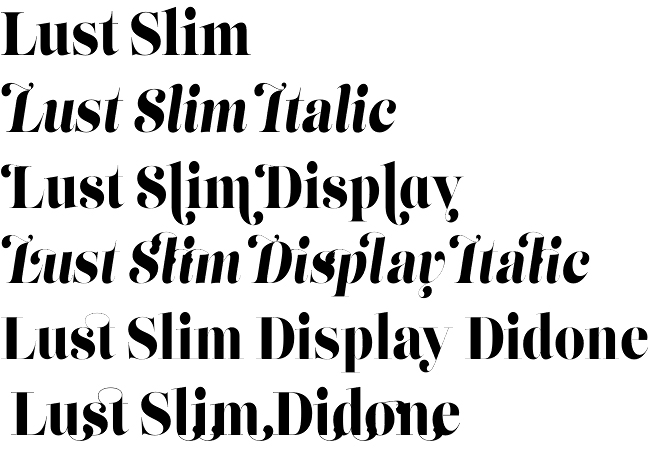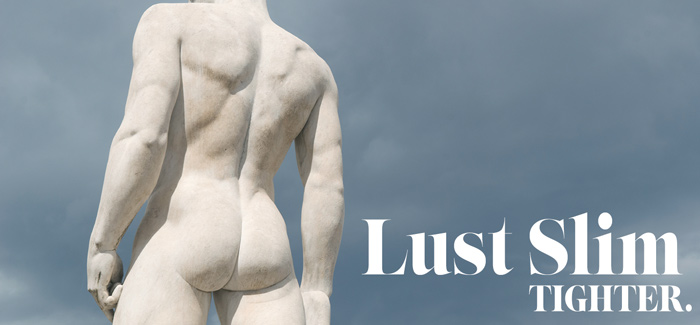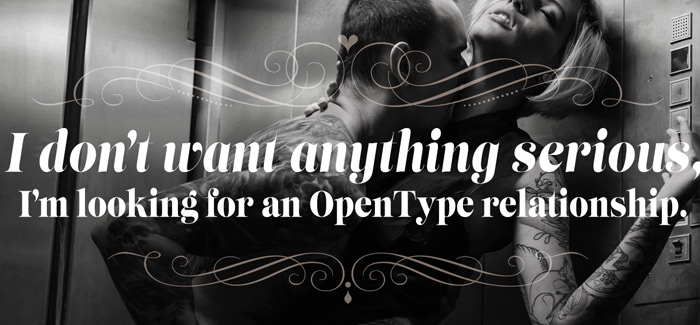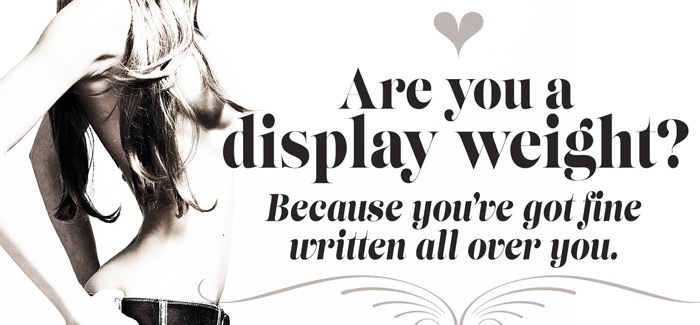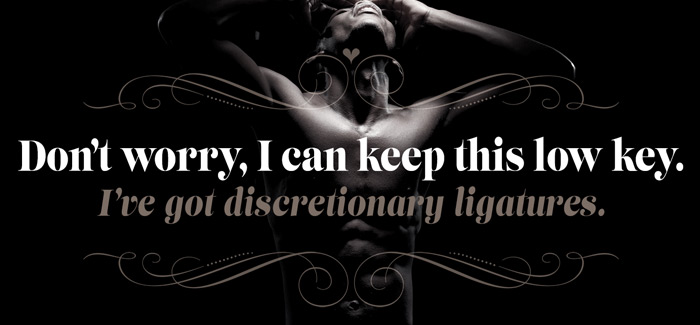
Lust Slim font
Lust Slim font by Neil Summerour / Positype (Clear Sans Text font, Clear Sans font, Shameless font) is the French hottie in the ensemble of the Lust and Lust Script font families. She’s slender, she’s graceful, she’s delicate, she’s the final touch, forming a complete perfect trio of sensual curvy typefaces together with Lust font and Lust Script font. Lust Slim font signifies a maturation of the individual families as it branches out into further useful typographic indulgences. Lust Slim font is just that, slimmer, more compact, more economical of space. Both weights and each variant still appear… just optimized for a narrower setting. Everything that was under the covers before, still remains – with a few surprises – lots of contrast, almost demure, coy contrast mixed with the flowing curves of a woman’s body, incomplete, almost teasing ball terminals, and serifs that went on forever…so sharp they would draw blood if you touched them.
Lust Slim font family consists of six variations with plenty of alternates to have fun with. Utilizing the OpenType features (and Glyph palette) wisely will have you weaving through endless possibilities of Stylistic, Contextual, Titling, Historical and Swash alternates‚ and the Italic styles feature a Contextual system that allows you to switch seamlessly between Didone and Scotch features in order to better complement the upright variants.
Designer’s WARNING! ‘I cannot stress this enough. Please know what you are getting into with this typeface. Like a supermodel, it can’t be squeezed into every situation. It needs room and size to breathe. The regular weights can support 36-point or higher settings, whereas the display weights shine above 72-point (preferably 100-point).’